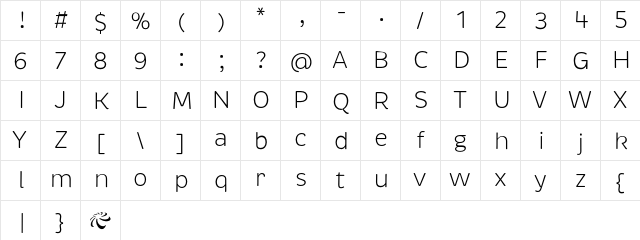
Brevia Light Regular
| Foundry | Hannes von Dn |
| Designer | Hannes von Dn |
Design Context for Brevia Light Typeface
Brevia Light offers clean, dependable letterforms without strong stylistic allegiance, making it a practical choice for designers who need flexibility. Its slender proportions lend an understated elegance to any composition.